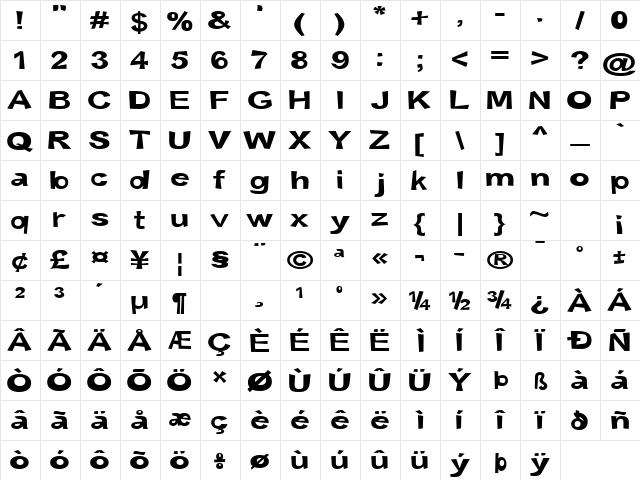
Snott 2000 Bold
Design Context for Snott 2000 Typeface
Snott 2000 takes a measured approach to typography — its balanced proportions and neutral character make it a reliable workhorse for both digital and print work. The heavy weight commands attention and anchors typographic hierarchies.